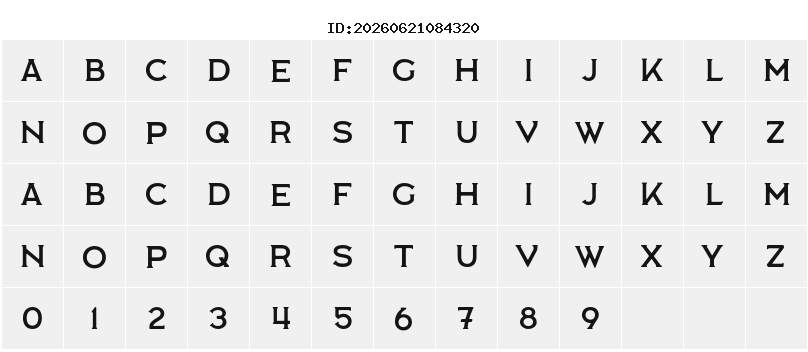
• Font Name: Labor Union
• Full Font Name: Labor Union Regular
• Designer: McLetters
About Labor Union.otf
Labor Union.otf is a modern, elegant sans-serif font designed for ultimate readability and visual harmony. Perfect for branding, headlines, web design, and print materials.